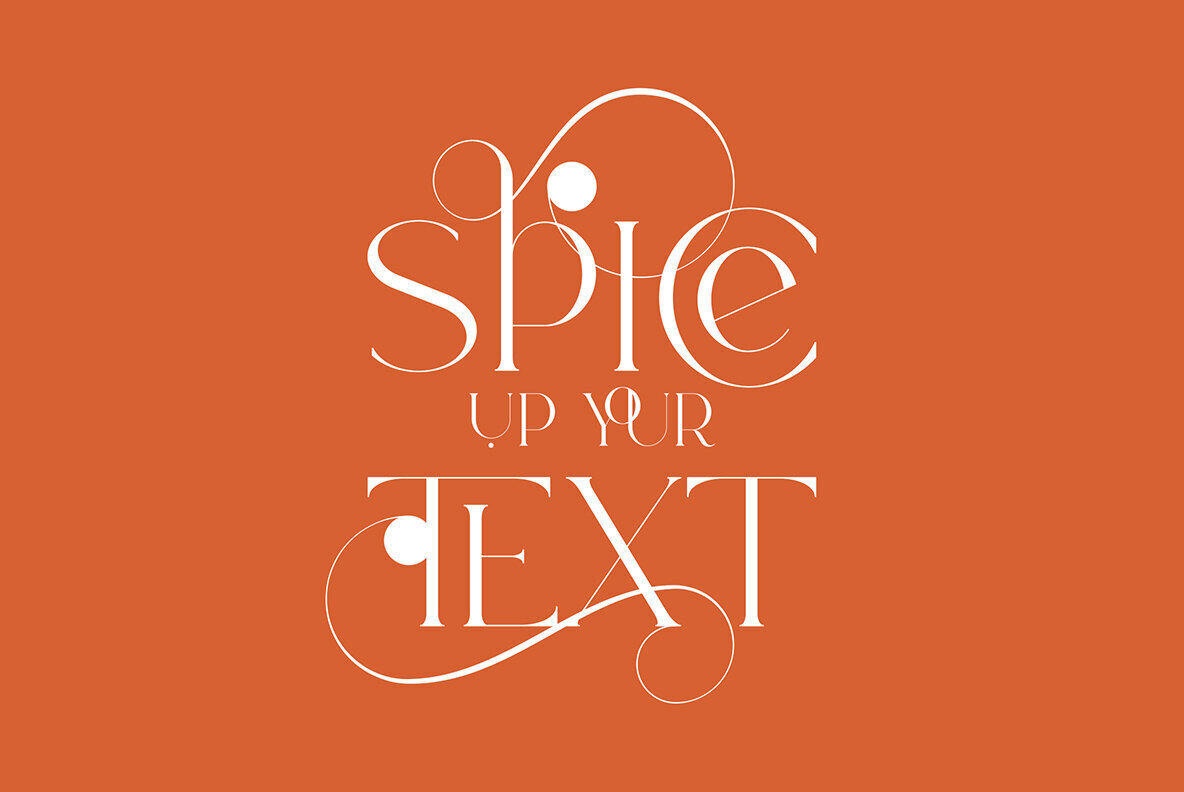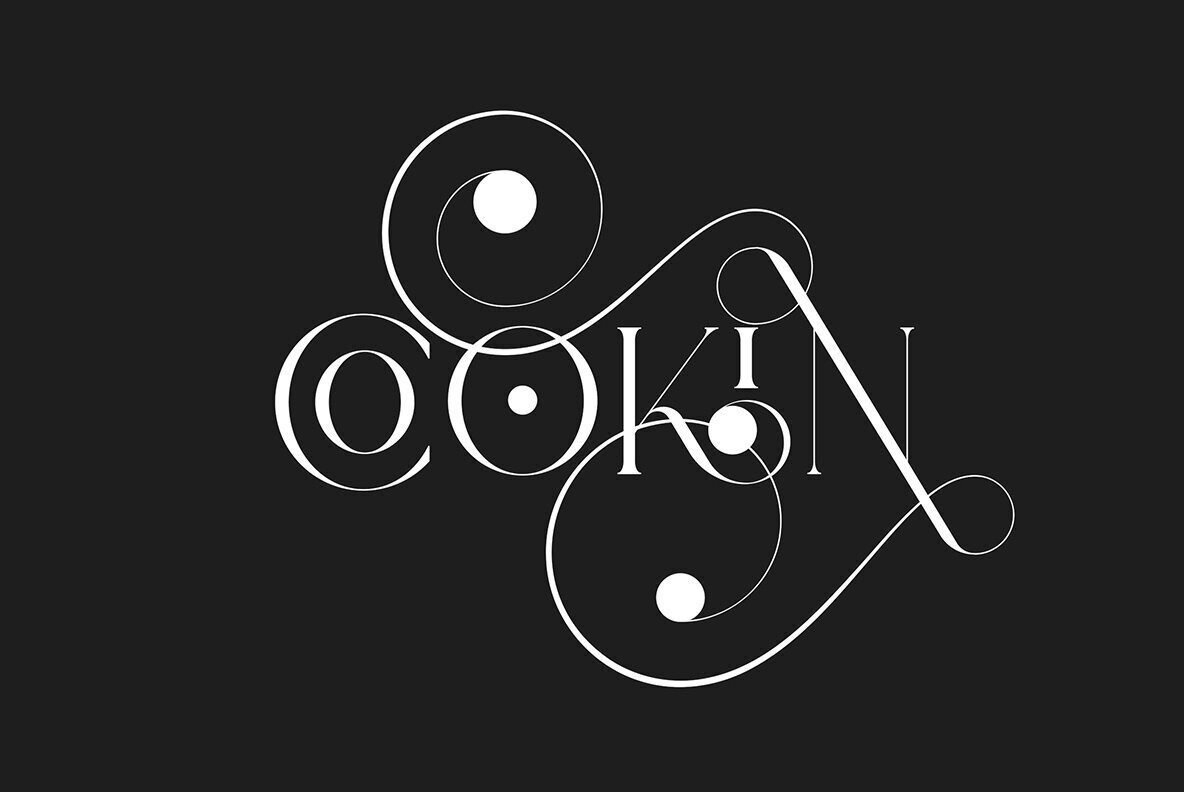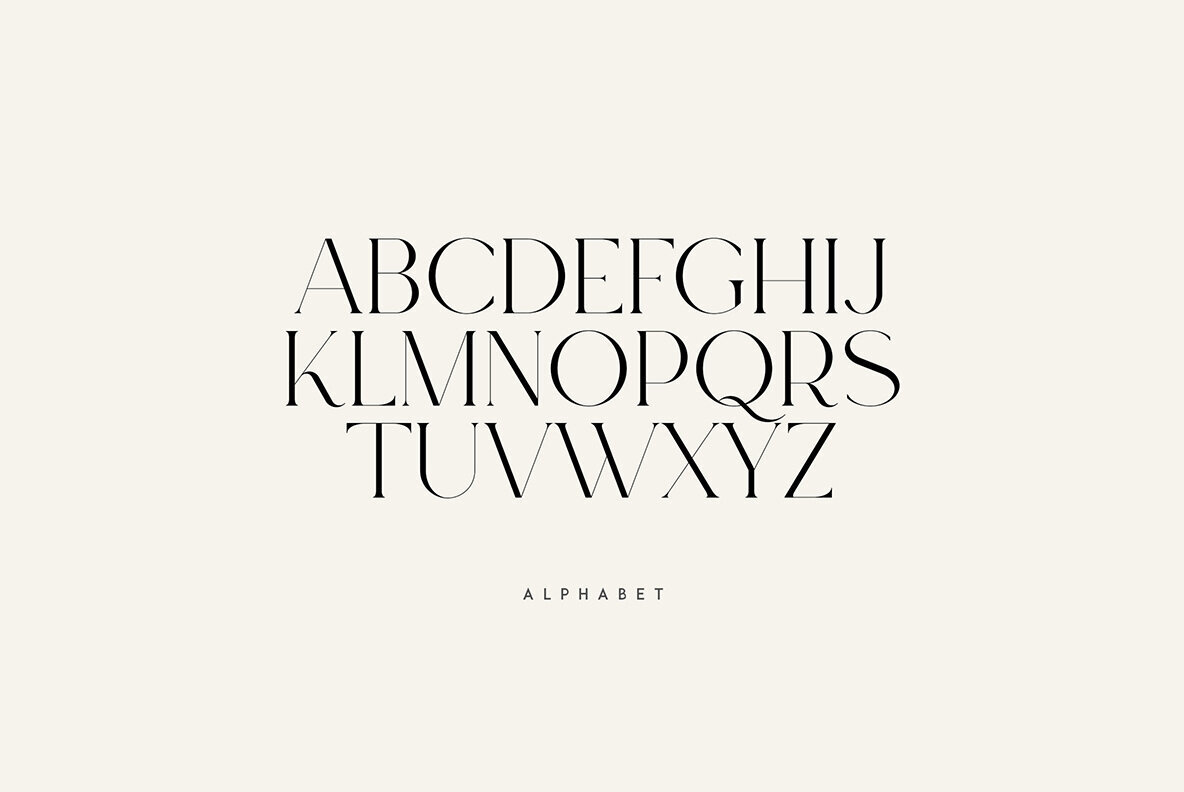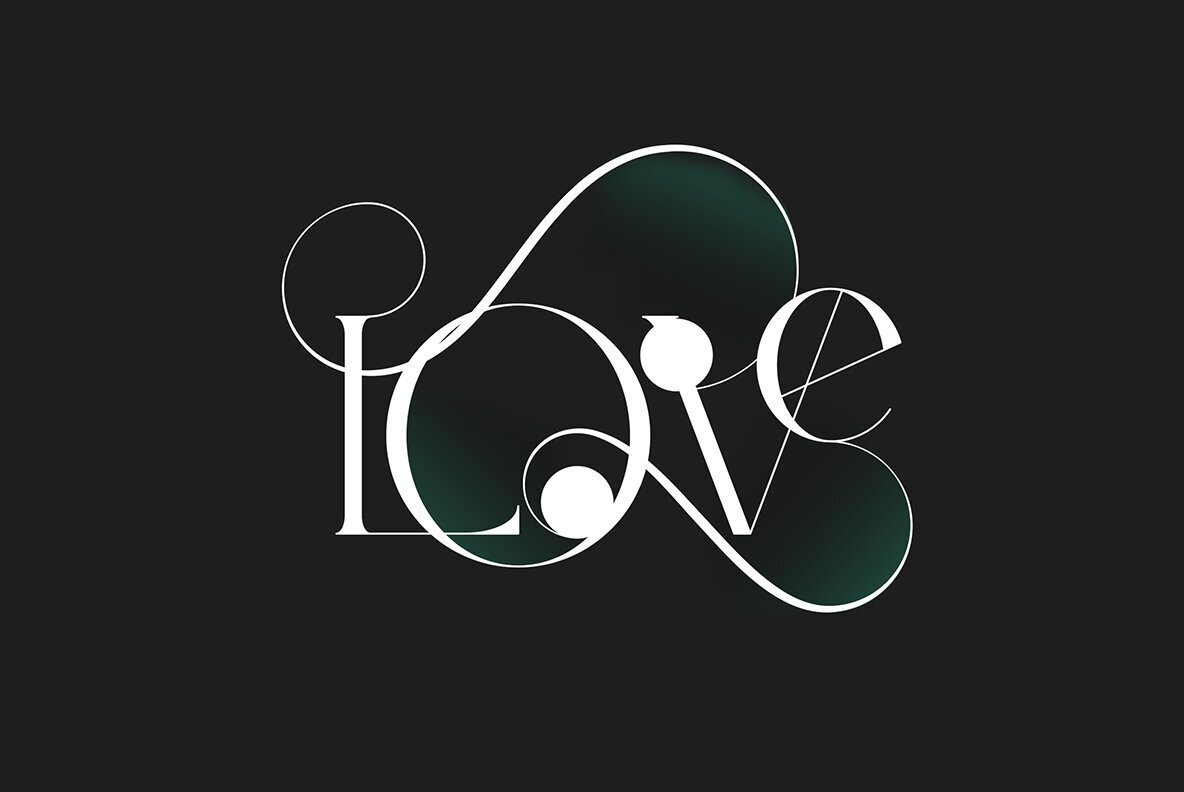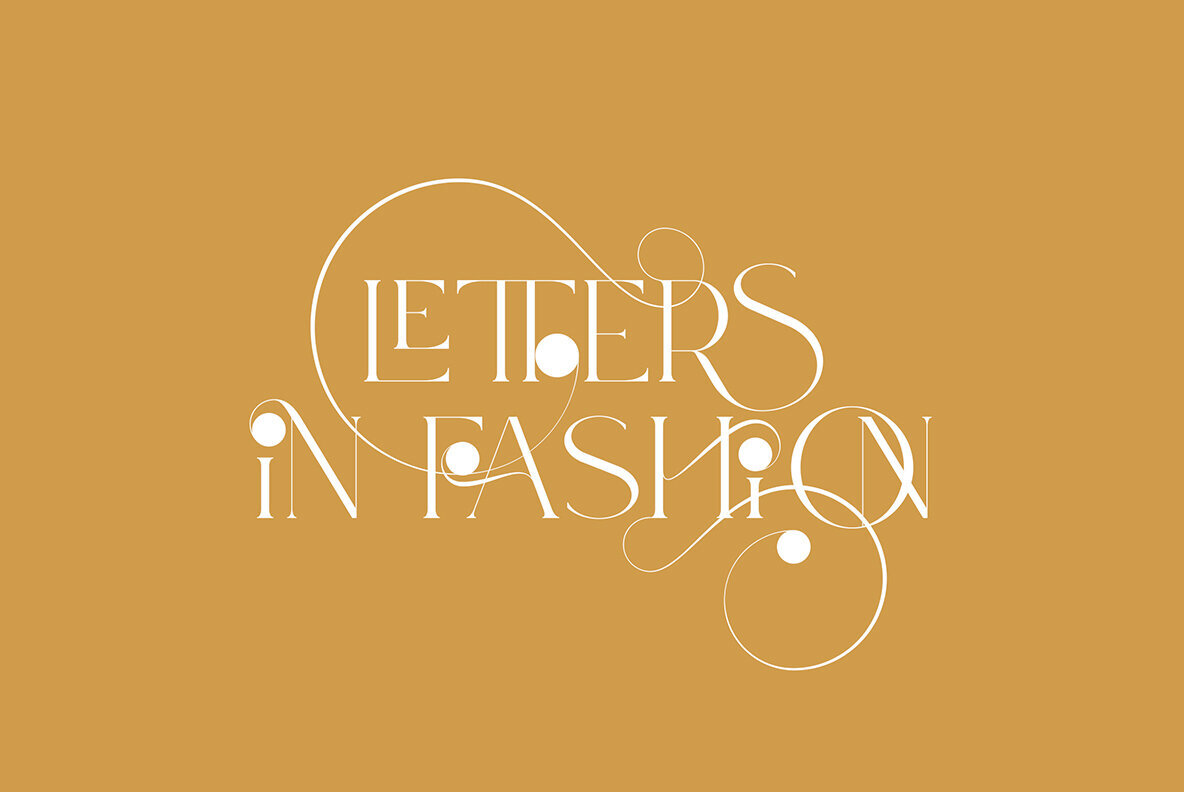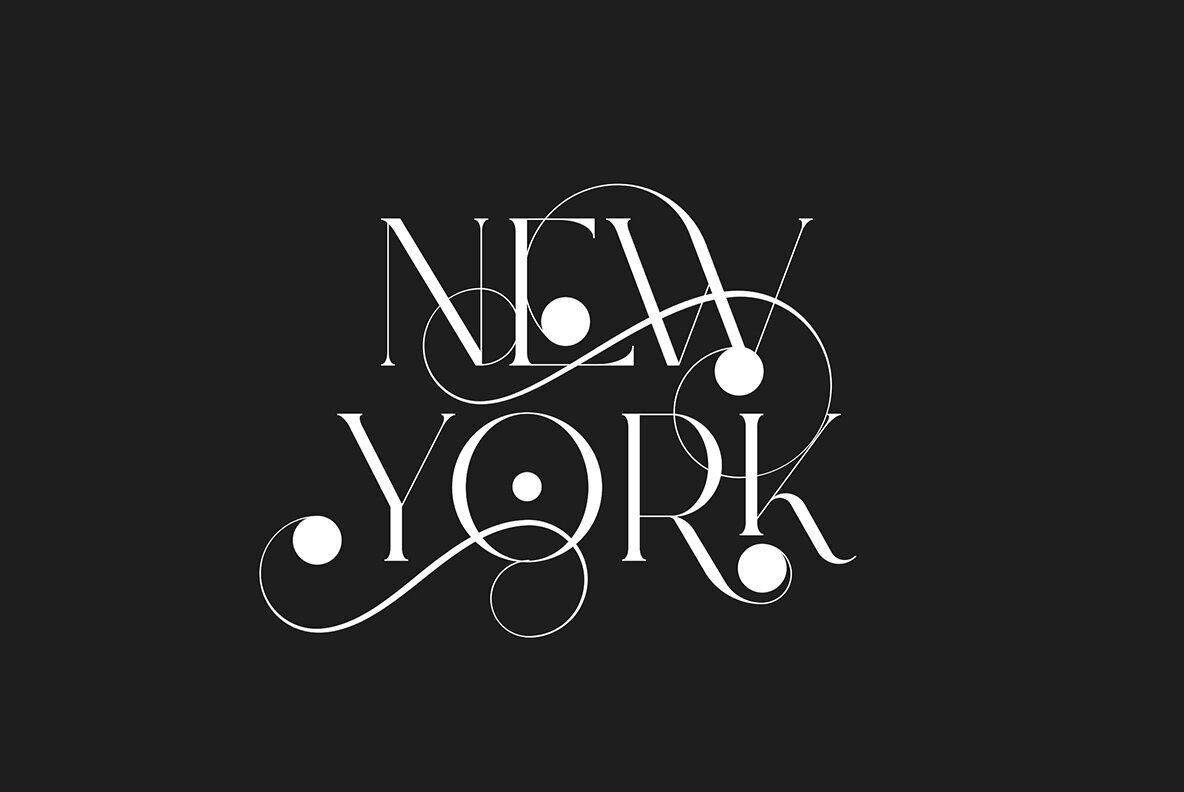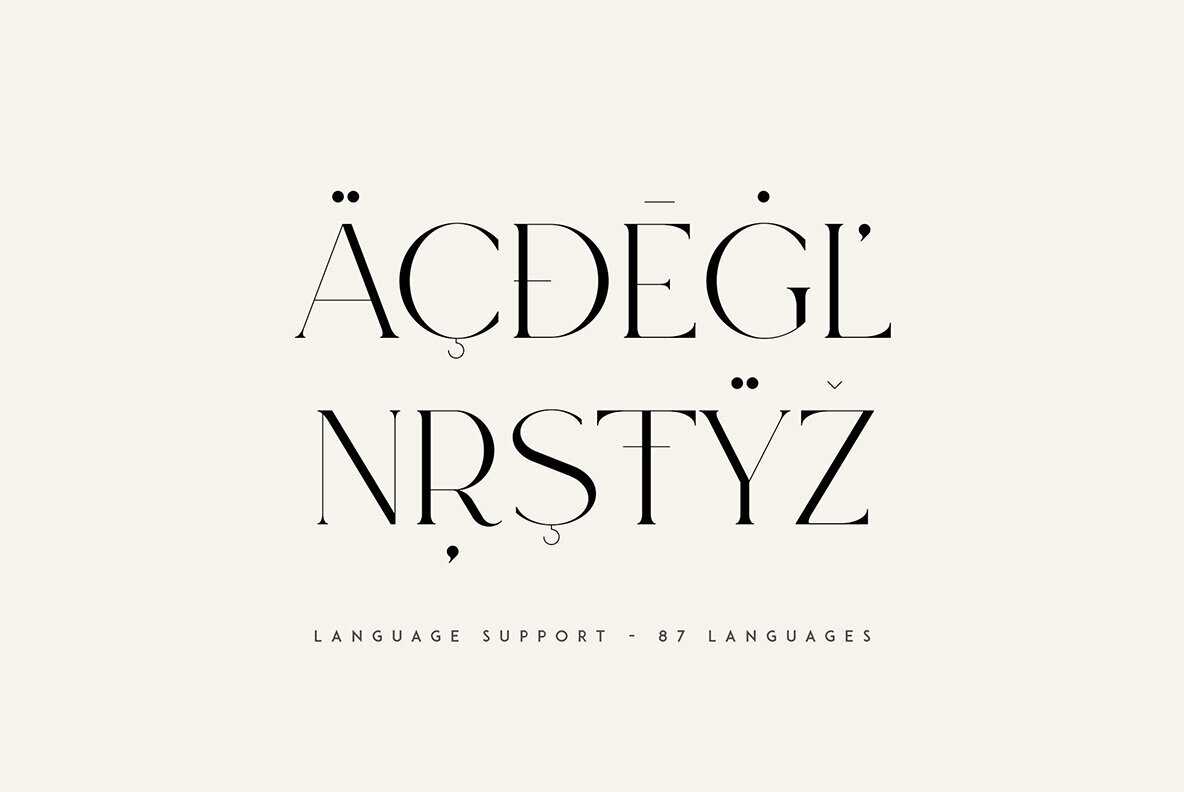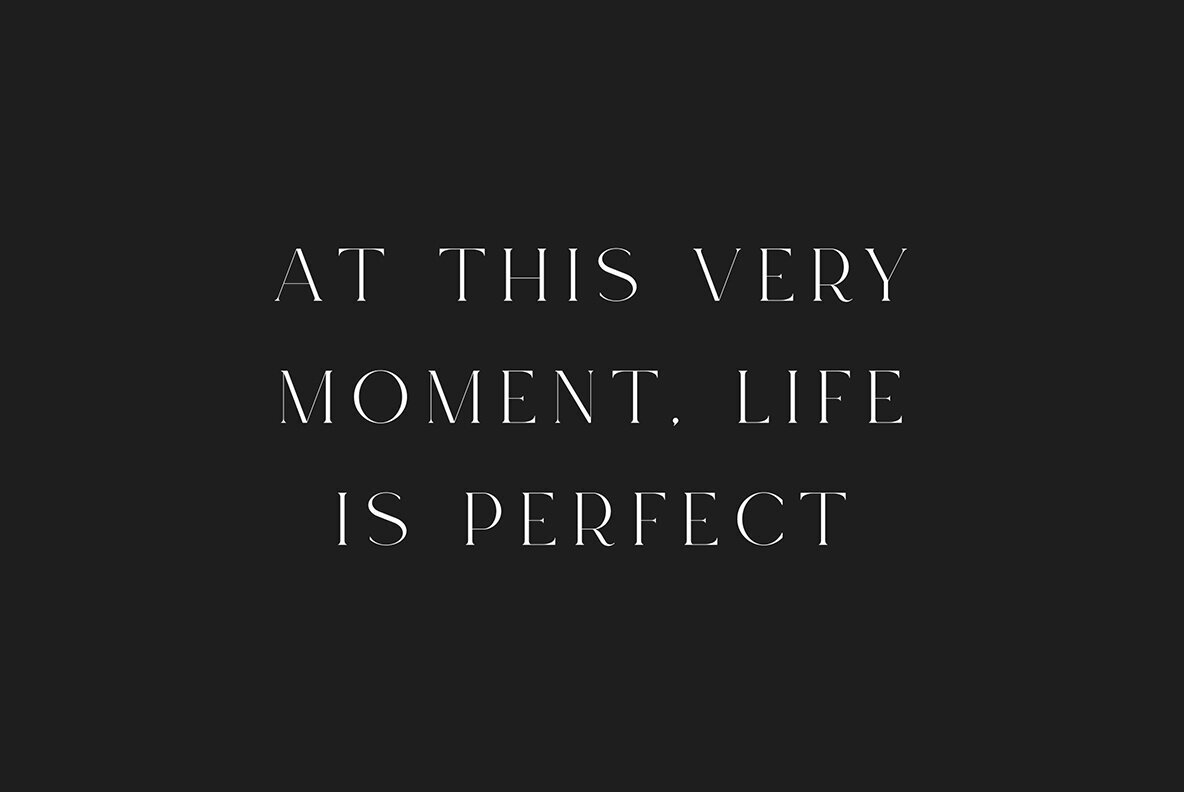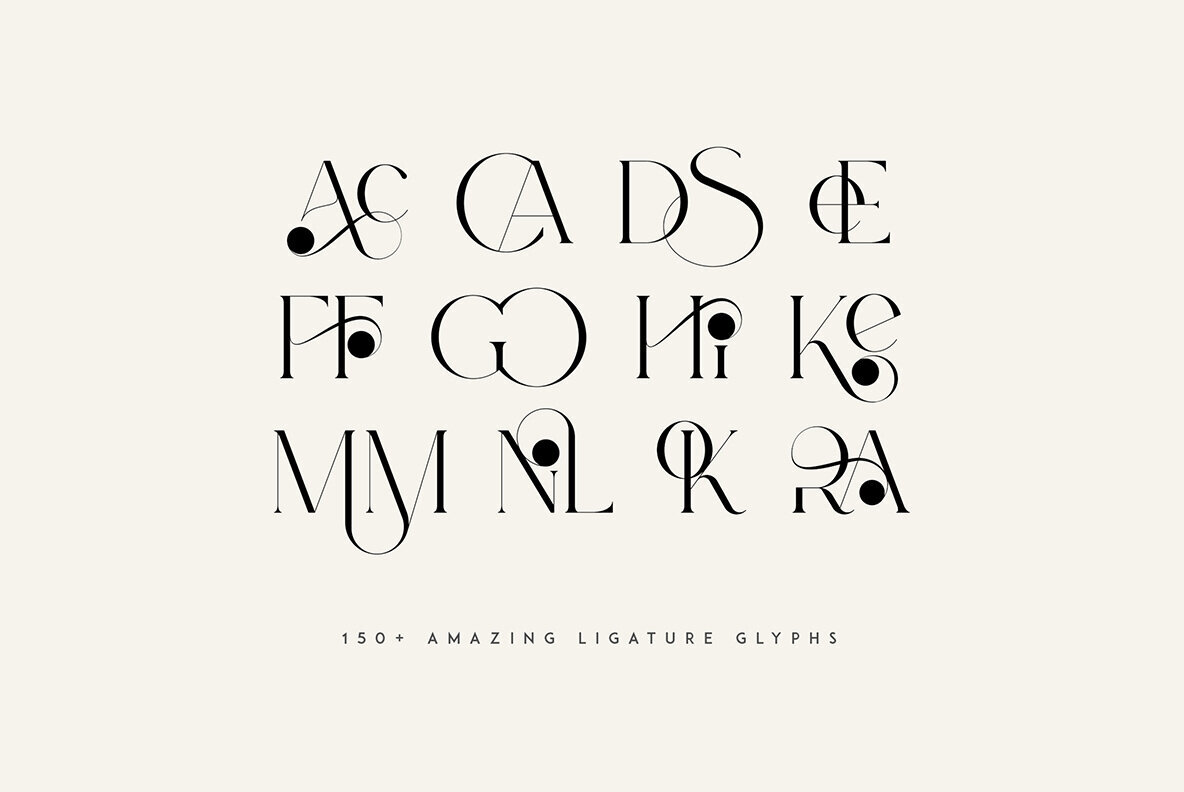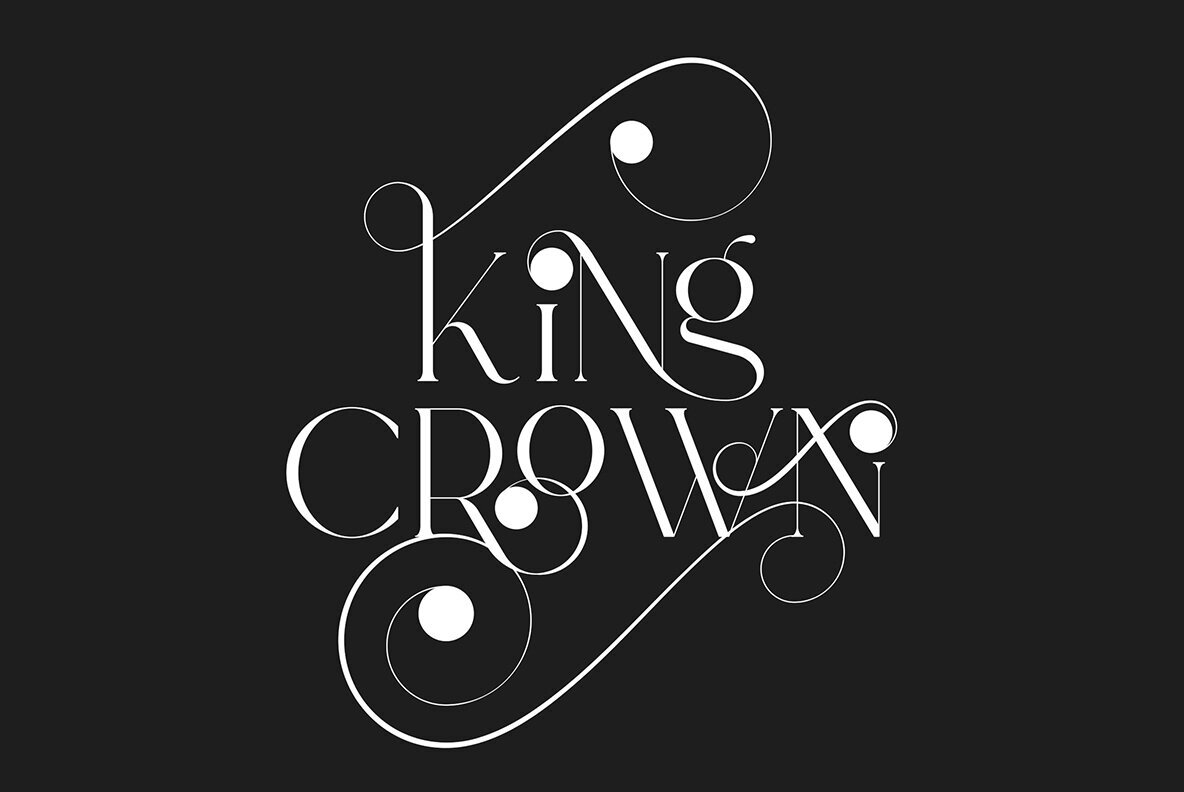
Sun Type Font
Sun Type is a captivating serif logo font known for its creativity and charm. Featuring over 150 ligature glyphs and alternate characters, it offers extensive design possibilities, perfect for crafting unique and visually appealing logos and brand identities. This font accommodates a wide array of languages, including but not limited to: In Adobe InDesign or Illustrator, access alternate glyphs by choosing Window > Type > Glyphs. In Photoshop, use the Window > Glyphs menu. Click the Show menu and select Alternates for Selection. Double-click on an alternate's thumbnail to switch them.Sun Type: Versatile Serif Logo Font with Ligatures and Swashes
Extensive Language Support
Ligature Highlights